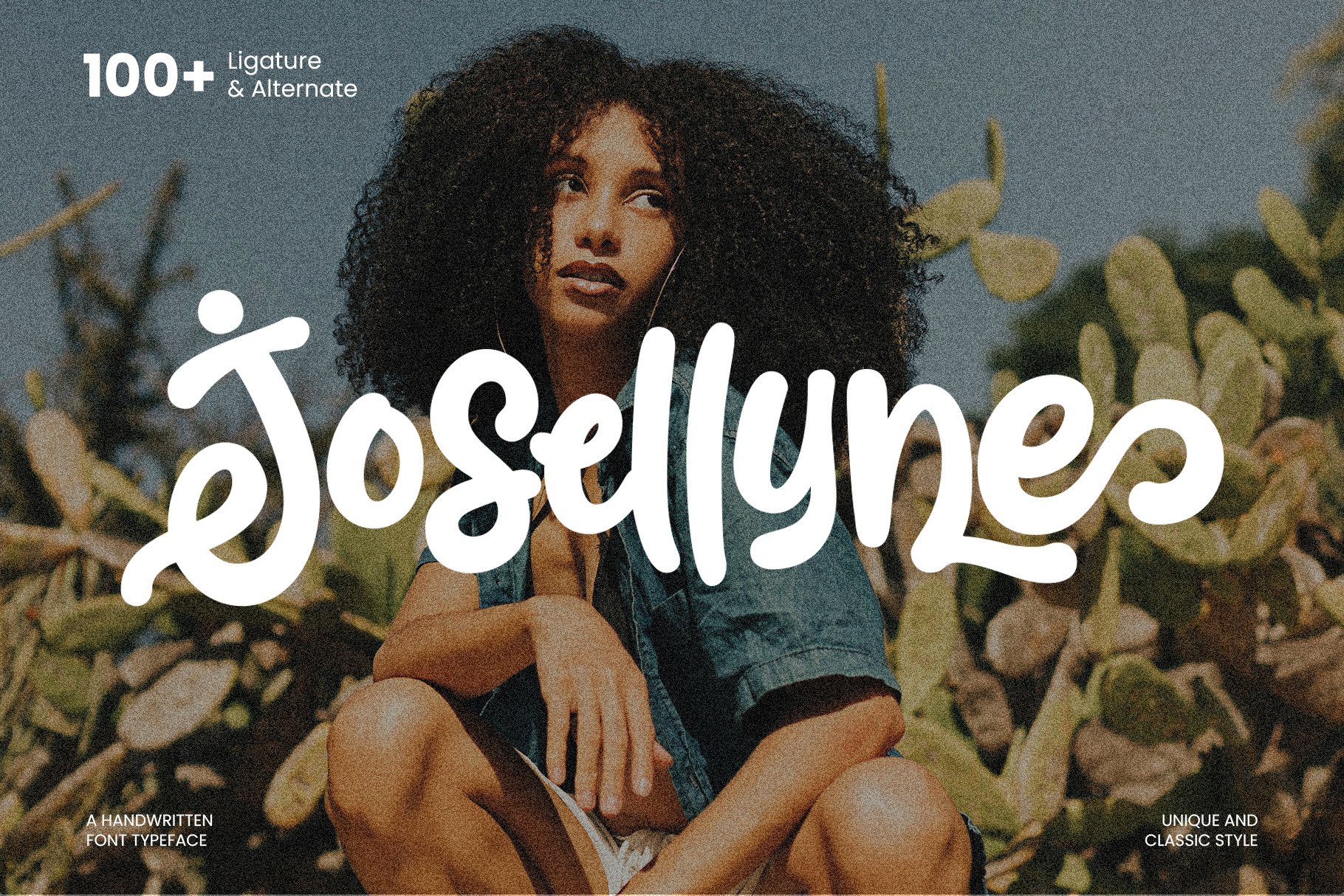
Josellyne - Handwritten Display Font
Playful handwritten display font with organic strokes, ideal for eye-catching logos, invitations, posters, and modern branding projects.
- Uppercase & Lowercase Characters: Fully designed for a complete typographic experience
- Numerals & Punctuation: All the numbers and punctuation marks you need for any design task
- Multilingual Support: Includes characters for multiple languages, ensuring global usability
- High-Quality Design: Each font is crafted with attention to detail, ensuring a polished and professional look